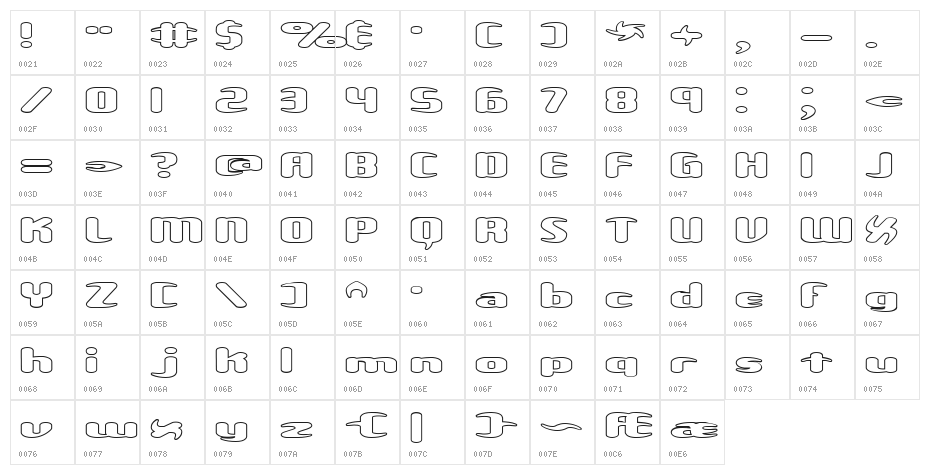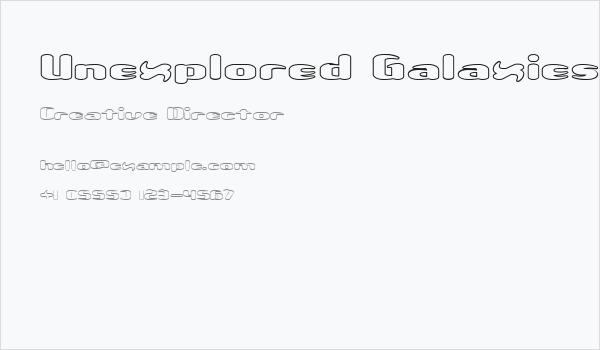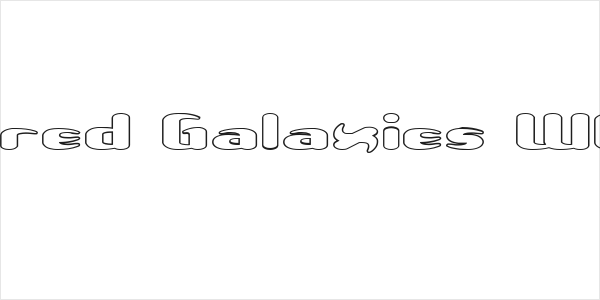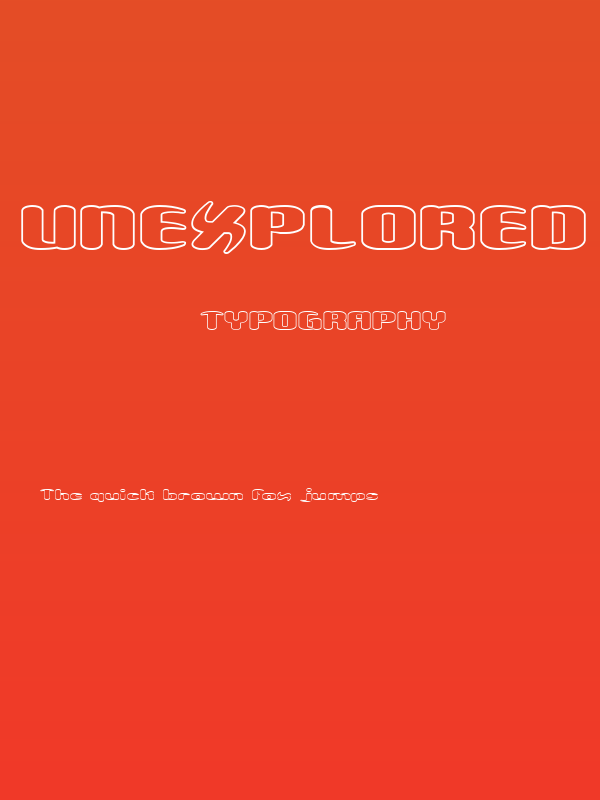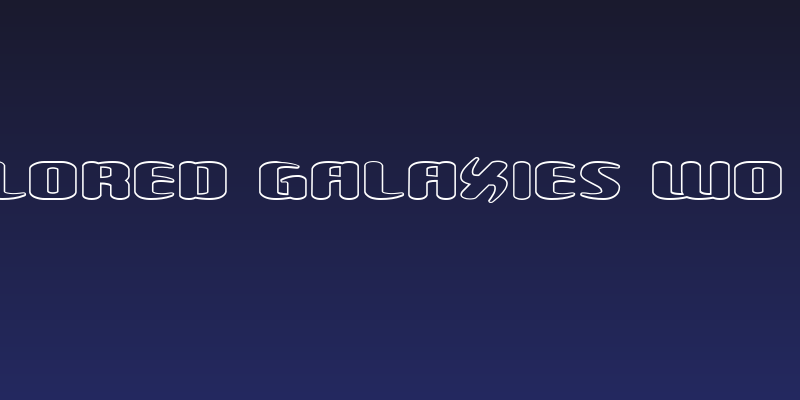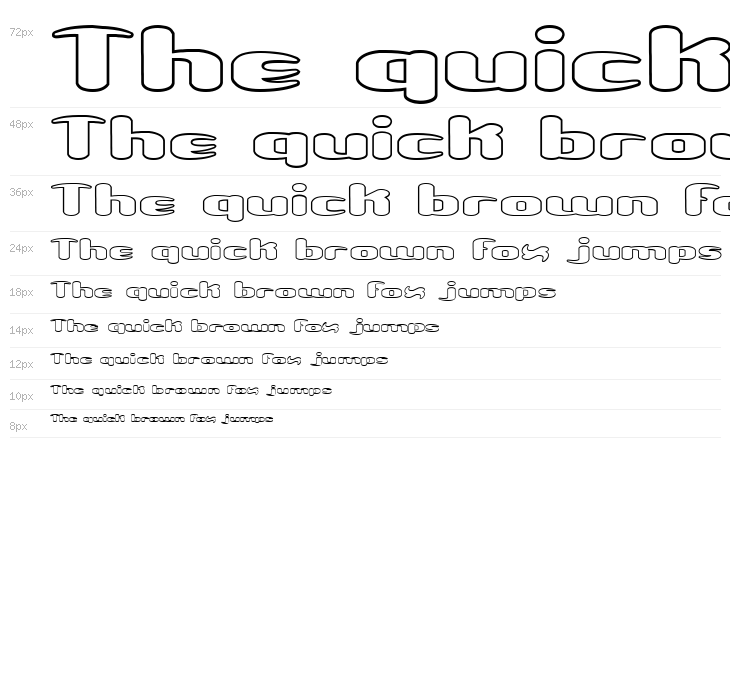
Unexplored Galaxies WO -BRK- Font
Unexplored Galaxies WO -BRK- Description
This font features a futuristic and playful design, characterized by its hollow, outlined letterforms. The uppercase and lowercase letters maintain a consistent style, with rounded edges and a uniform thickness throughout. The numbers and special characters follow the same aesthetic, ensuring a cohesive look across all glyphs. The unique design elements, such as the angular cuts and smooth curves, give it a modern and dynamic appearance. This font is ideal for projects that require a bold and eye-catching typeface, offering a sense of innovation and creativity.
| Proposed Projects | Ideal for sci-fi themed designs, video game titles, tech branding, and creative posters. |